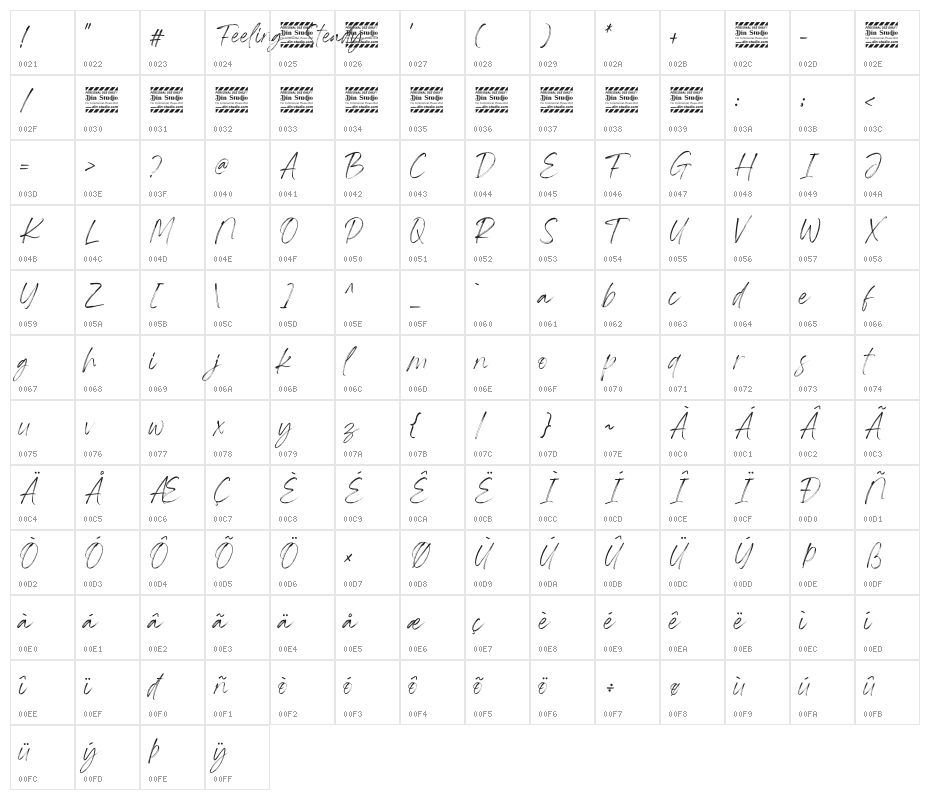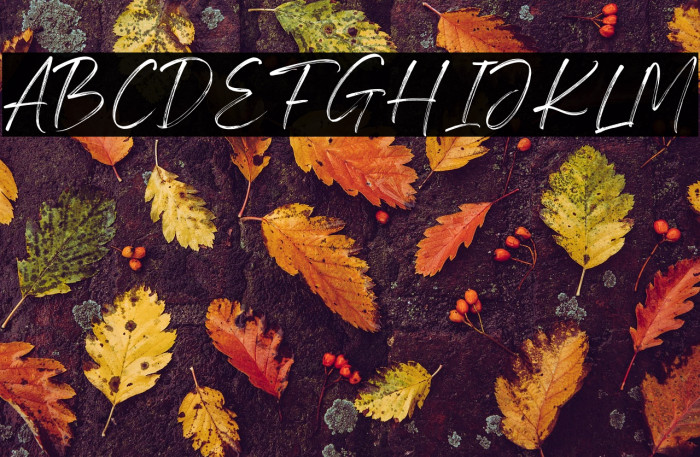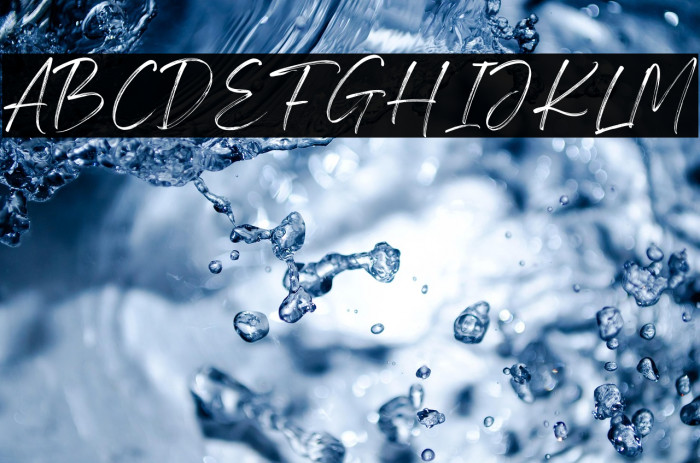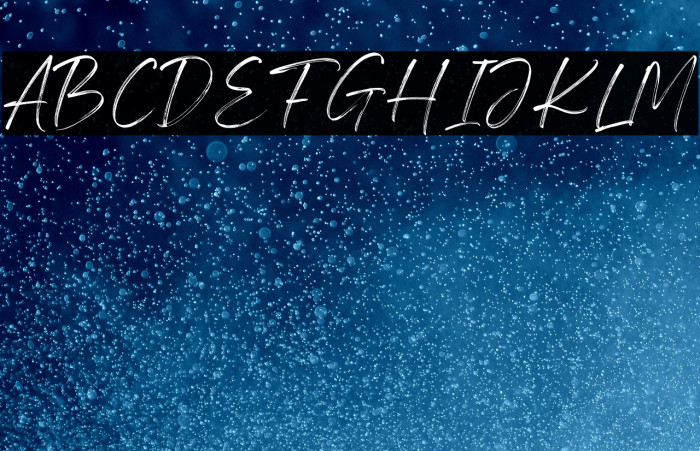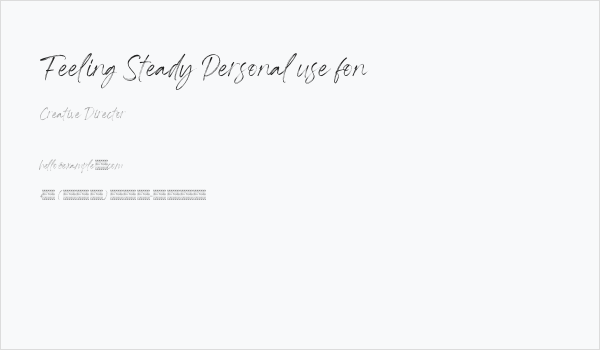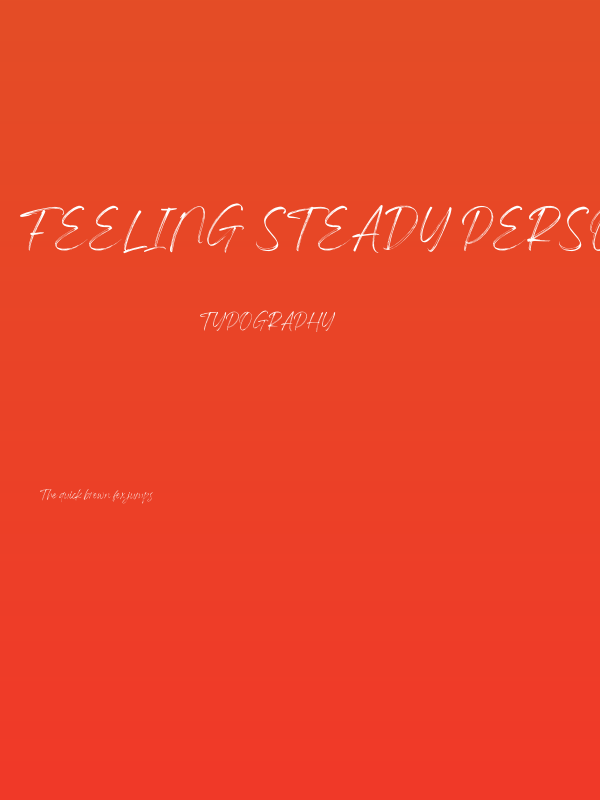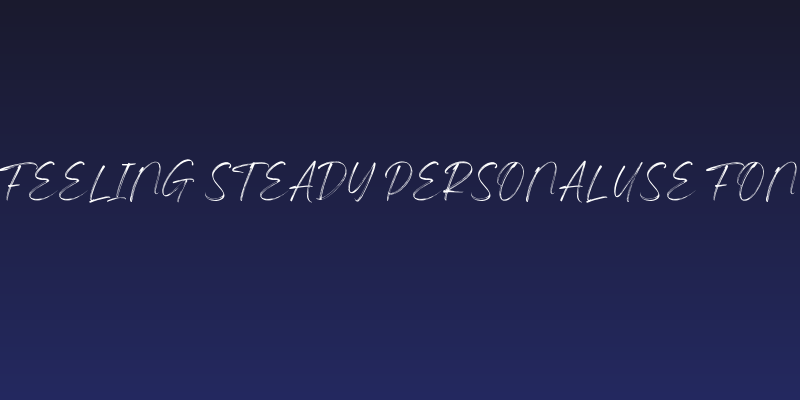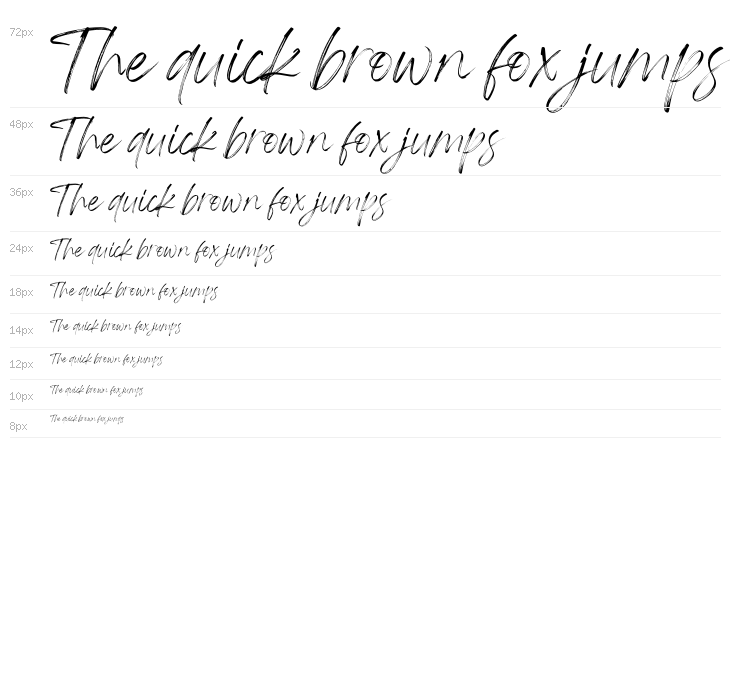
Feeling Steady Personal use fon Font
Feeling Steady Personal use fon Description
This font features a dynamic and expressive handwritten style, characterized by its fluid strokes and natural flow. The letters exhibit a slight slant, adding to the casual and personal feel. The uppercase and lowercase letters are well-balanced, with a consistent rhythm that enhances readability. The font includes a full set of numerals and a selection of special characters, making it versatile for various design needs. The brush-like texture of the strokes gives it an artistic and organic appearance, suitable for projects that require a personal touch.
| Use Case | Logos, Headlines, Personal projects |
| Proposed Projects | Ideal for personal branding, invitations, greeting cards, and social media graphics. |